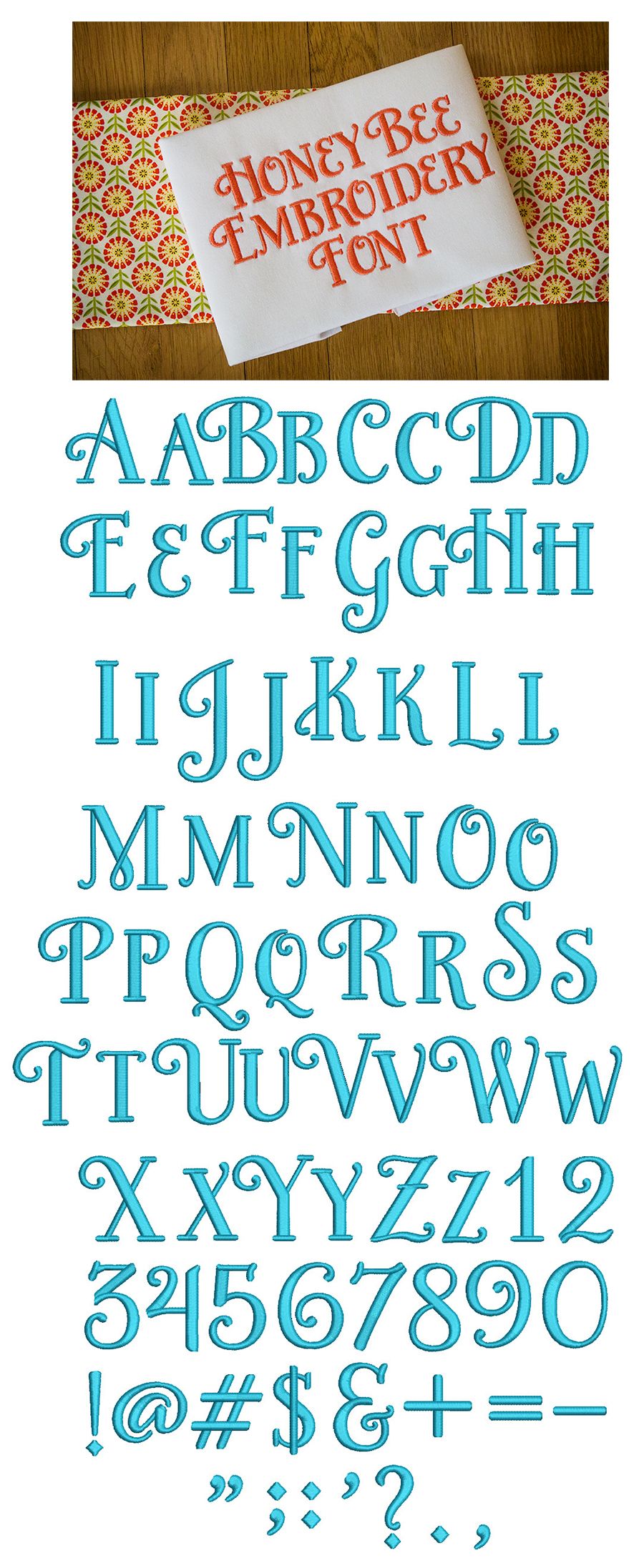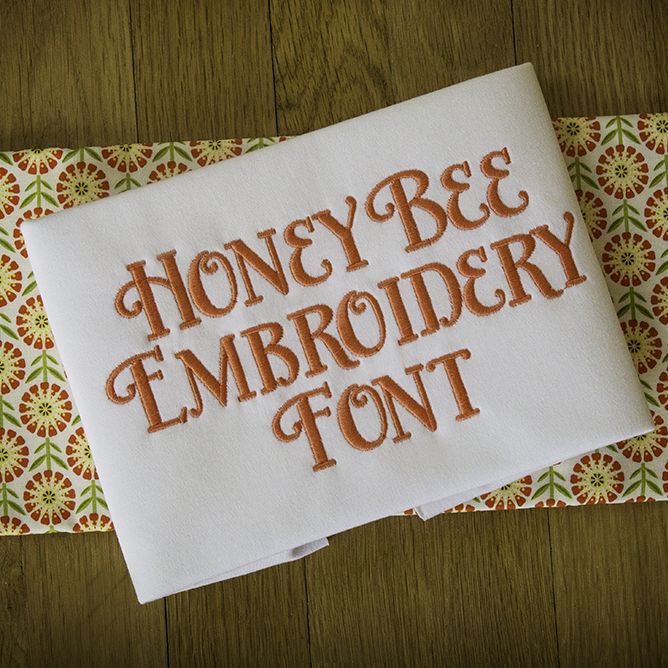
Honey Bee Satin Stitch Embroidery Font
A beautiful and elegant, more "formal" font. Simple print making it very versatile! All of our fonts are 100% manually digitized to ensure the highest quality.